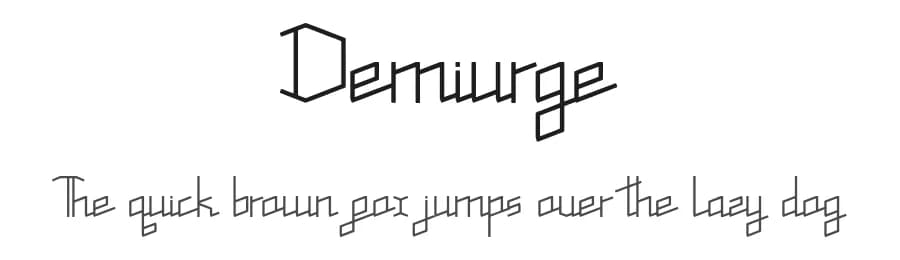
About Demiurge Font
Proudly offering our newest product Demiurge font! This font consists of 2 different 'script and sans' styles. These two beautiful fonts will be perfect to incorporate into your design.
Demiurge Font is a script font that shines as a display or heading face. Pair it with a clean sans-serif or serif font for body text β the contrast creates a clear hierarchy while the two styles stay balanced and easy to read.